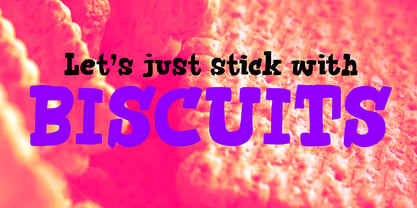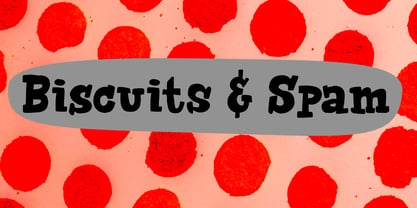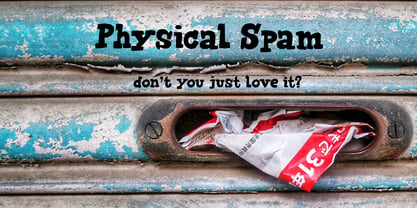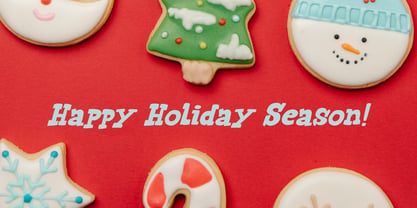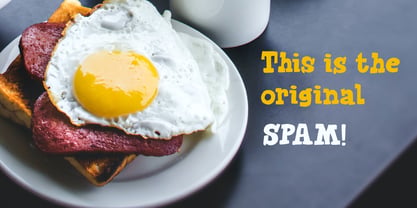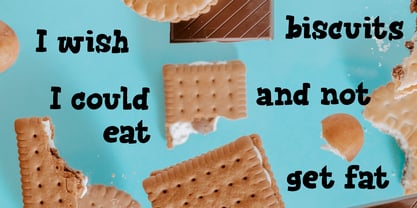
Biscuits And Spam Pro
Die Schriftfamilie Biscuits And Spam Pro wurde von David Kerkhoff entworfen und von Hanoded veröffentlicht. Biscuits And Spam Pro enthält 2 Stile und Familienpaketoptionen. Mehr über diese Familie
I remember that my auntie once made a dish called ‘Macaroni and Smac’. It consisted of little ‘elbow’ macaroni, Spam (which in Holland was called Smac), cheese and ketchup. I am sure it didn’t contain on of your five a day, but it was delicious. As far as I know, I have eaten it only once, but it did make a lasting impression!
Biscuits & Spam is a handmade ‘Western’ style font, which I found in my ‘unfinished fonts’ folder. It comes with multilingual support, a full set of alternates for the lower case letters and a really happy vibe.
Hanoded is run by Dutchman David Kerkhoff. His fonts are a mishmash of styles, as he just creates whatever pops into his head. You will find a lot of brush fonts in his collection, as his favourite tools are brushes and Chinese ink, with cartoon style fonts and script fonts complementing his repertoire. Aside from making fonts, David occasionally guides tours in far-flung places, renovates his '30's house and tries reasoning with his wife and (teenage) kids. Not an easy task!